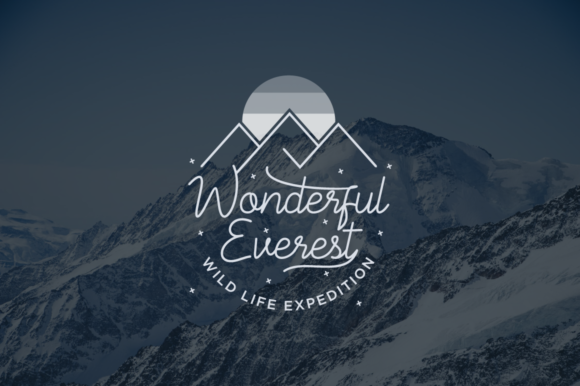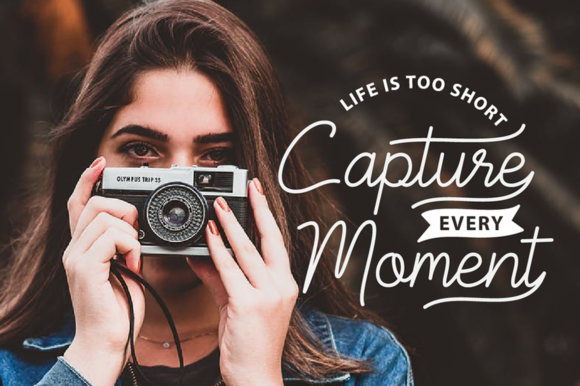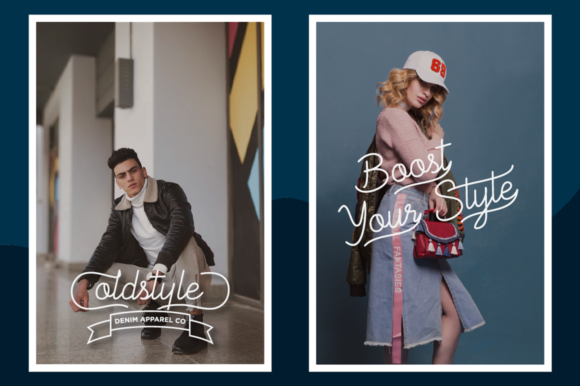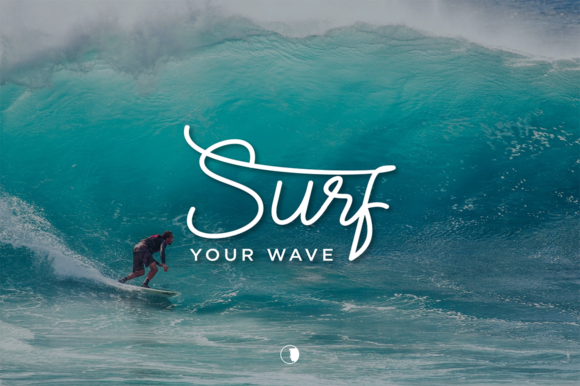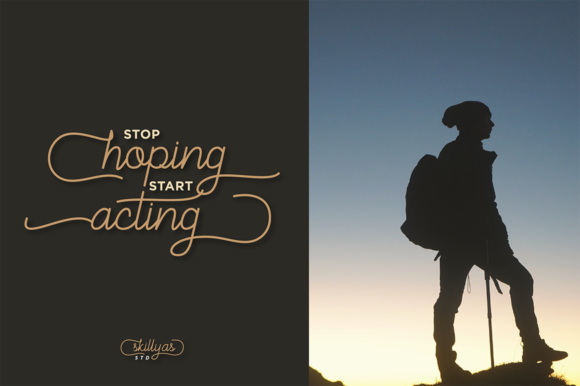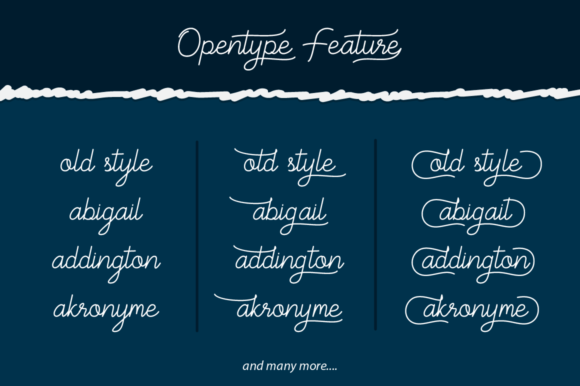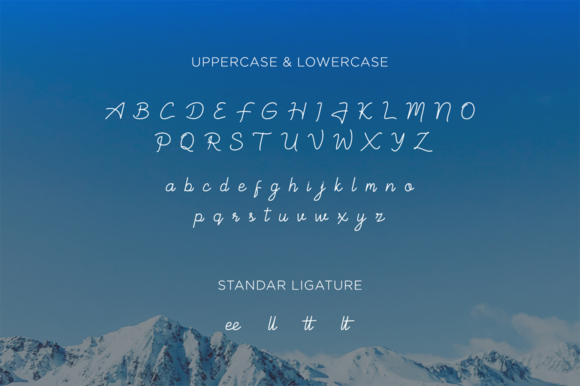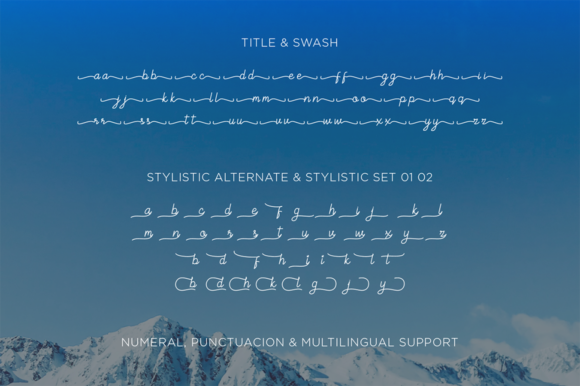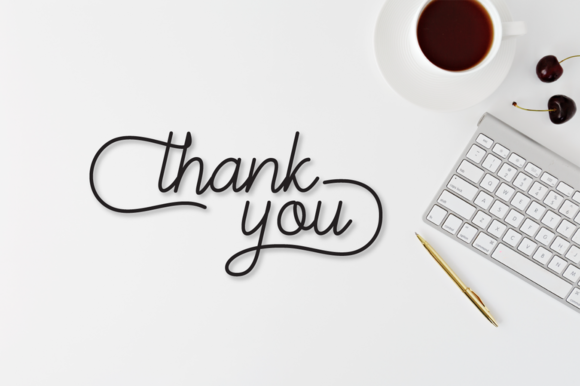
Winter Blues Font
About Winter Blues Font
Winter Blues is a delightful and delicate handwritten font that captures the essence of sweetness and joy. With its graceful and dainty letterforms, this font is the perfect choice for adding a romantic and personalized touch to your designs, particularly for occasions like wedding invitations, greeting cards, and more.
The soft curves and subtle strokes of Winter Blues give it a gentle and whimsical appearance. Each letter is crafted with care and precision, ensuring a harmonious flow and a sense of elegance. Whether you’re designing a heartfelt love note or creating charming stationery, Winter Blues will bring a touch of enchantment to your projects.
This font’s versatility extends beyond wedding-related designs. Winter Blues can also be used to add a touch of warmth and personalization to a wide range of projects, such as logos, branding materials, social media posts, and more. Its delicate and joyful nature evokes a sense of positivity and cheerfulness, making it a wonderful choice for spreading happiness through your designs.
Winter Blues is a font that embraces the beauty of simplicity and elegance. Its clean and legible style ensures readability, while its delicate and romantic characteristics make it stand out and evoke a sense of whimsy and charm. This font is sure to capture the hearts of your audience and bring a smile to their faces.
In summary, Winter Blues is a sweet and delicate handwritten font that adds a touch of romance and joy to your designs. Its graceful letterforms and charming appeal make it ideal for wedding invitations, cards, and any design that calls for a romantic and personalized touch. Let Winter Blues infuse your projects with the warmth and happiness of a heartfelt message.